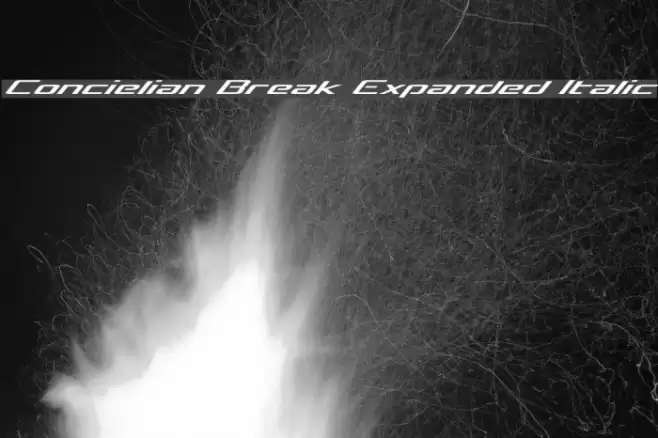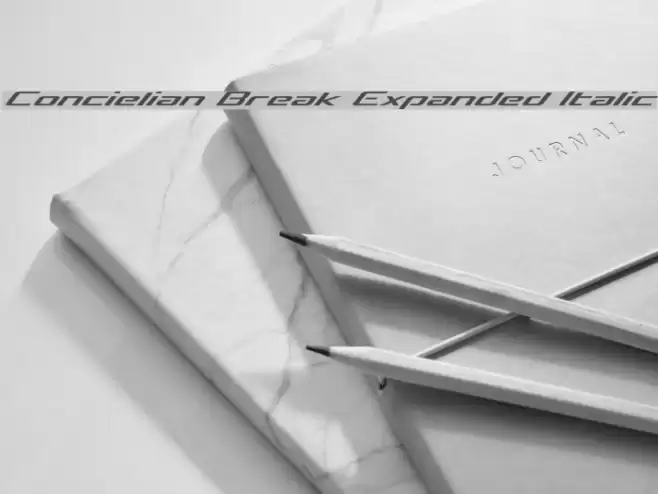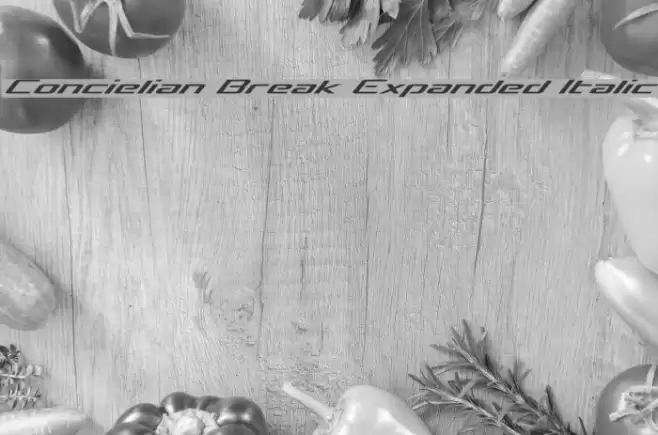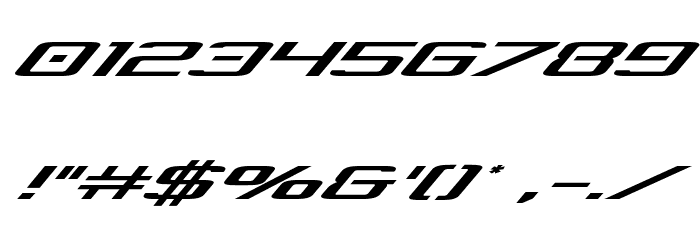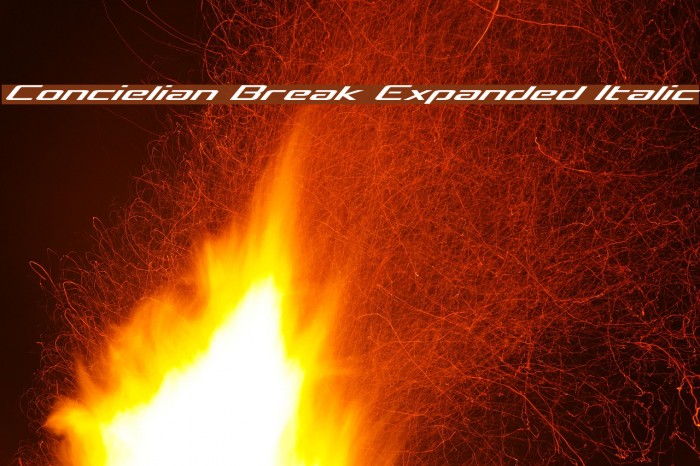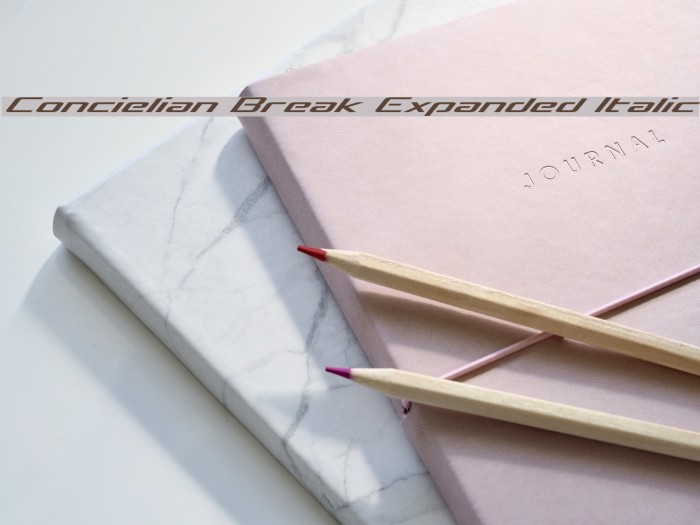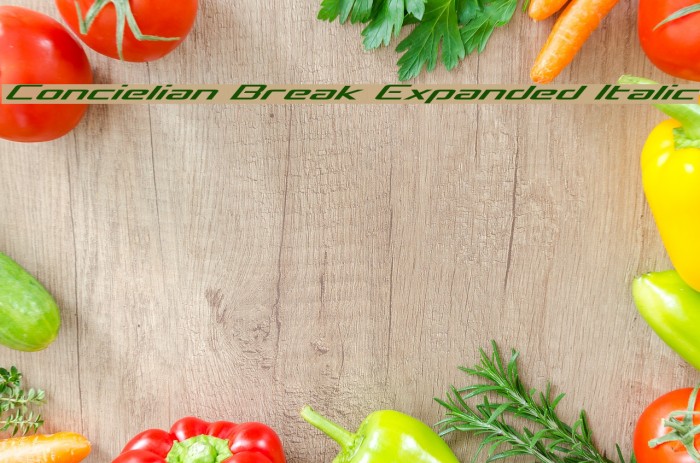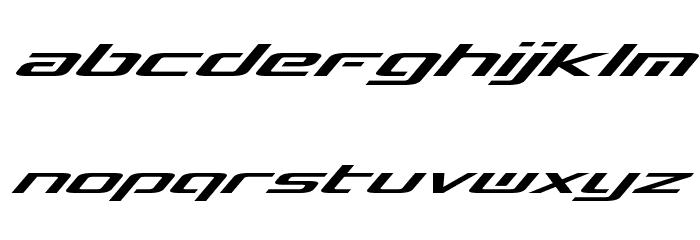
Concielian Break Expanded Italic Font
Concielian Break Expanded Italic Description
This font exhibits a sleek, futuristic design with an expanded and italicized style. The characters are sharply angled, giving a dynamic and forward-moving appearance. The strokes are consistent in weight, providing a uniform look across all characters. The uppercase and lowercase letters maintain a cohesive style, with the lowercase letters mirroring the angularity of the uppercase. The numbers and special characters are designed to match the overall aesthetic, ensuring a harmonious appearance throughout. This font's expanded width and italic slant contribute to its modern and energetic feel.
A sleek, futuristic font with expanded and italicized characters from Uncategorized fonts.
- Proposed Projects: Ideal for tech branding, sci-fi movie posters, video game titles, and modern advertising.